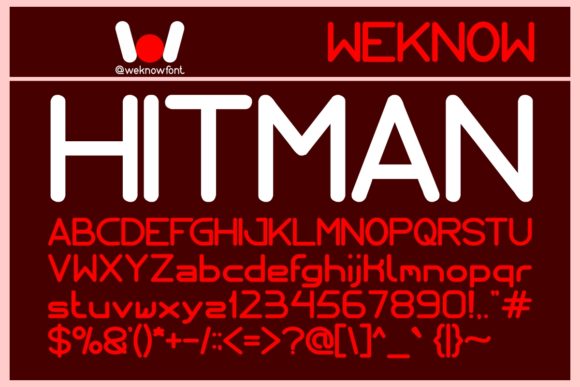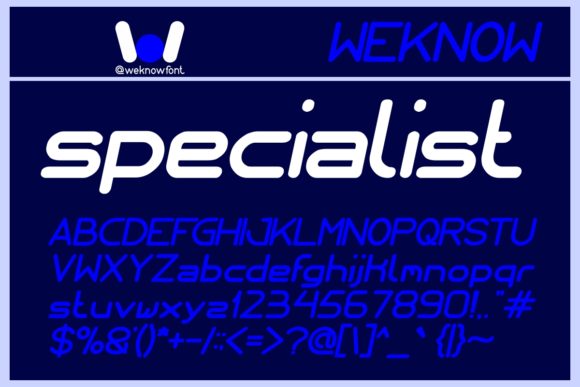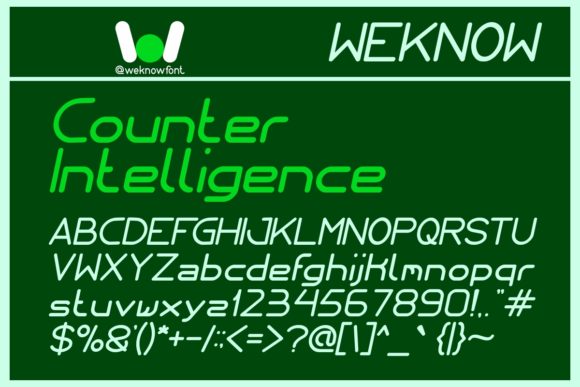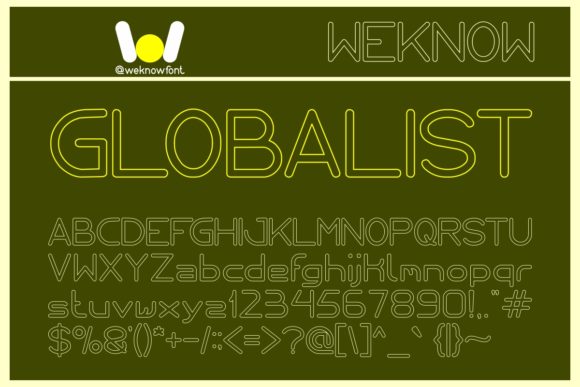
Introduction to Internationalist Font
Internationalist is a techno styled and sharp display font.
It is suitable for any branding, product packaging, invitation, quote, t-shirt, label, poster, logo that you wish to develop .
Key Features of Internationalist Font